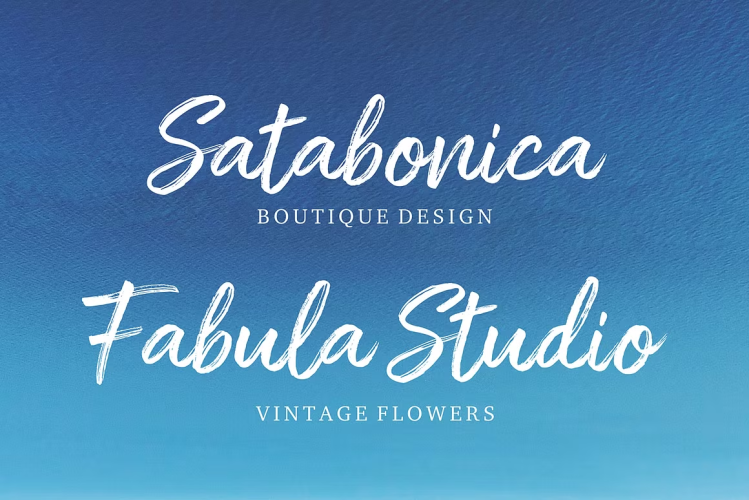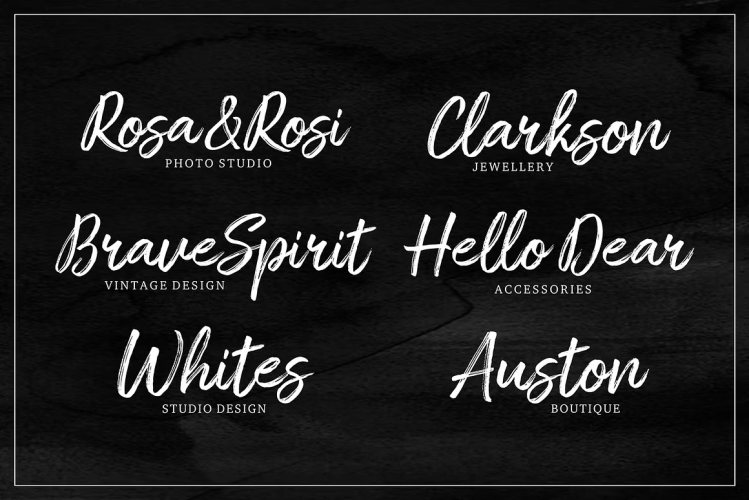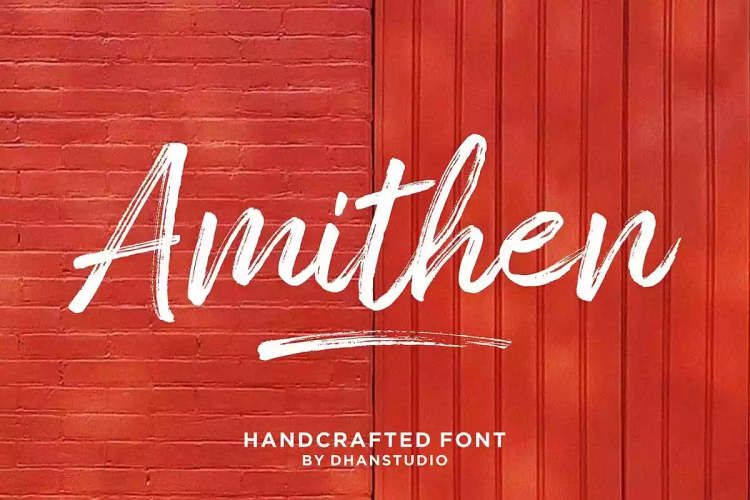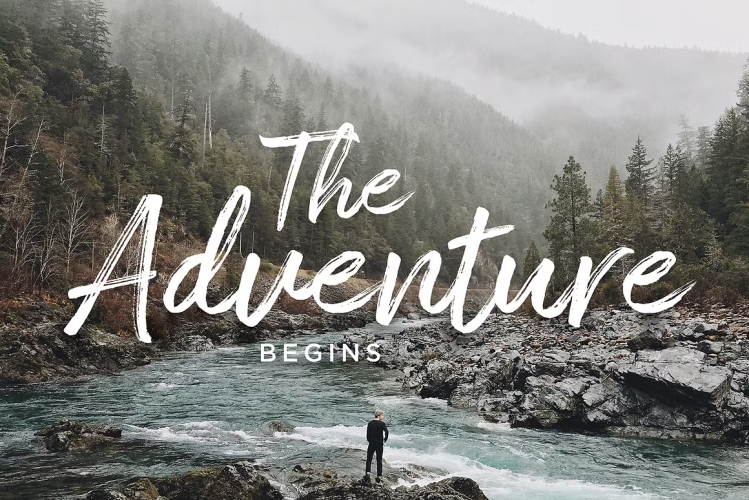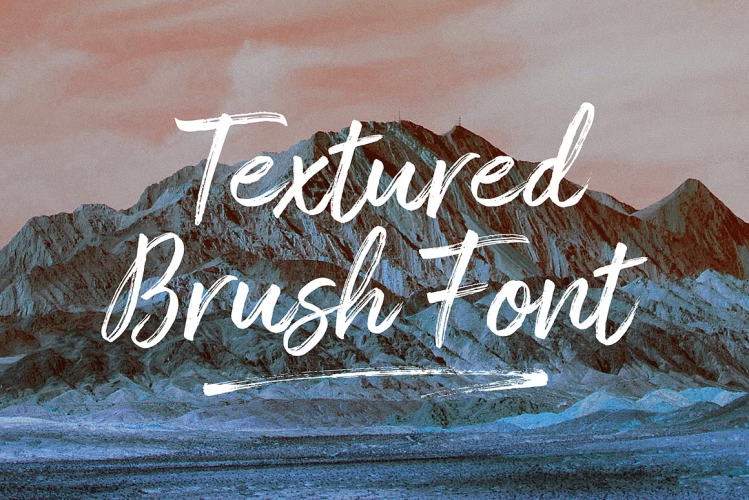
Amithen Font
Amithen is a textured brush font with a contemporary approach to design. It is handmade naturally with an irregular baseline. It is suitable for title design, such as apparel, invitations, book titles, stationery designs, quotes, branding, logos, greeting cards, t-shirts, packaging designs, posters, and more. Amithen includes a complete set of uppercase and lowercase letters and multi-language support, numbers, punctuation, and ligatures.
Bold branding
Amithen Font brings energy to sports, fitness, streetwear and surf brands.
Merch & apparel
Brush lettering prints beautifully on T-shirts, tote bags and stickers.
Social media & thumbnails
Punchy brush strokes grab attention in stories, reels covers and thumbnails.